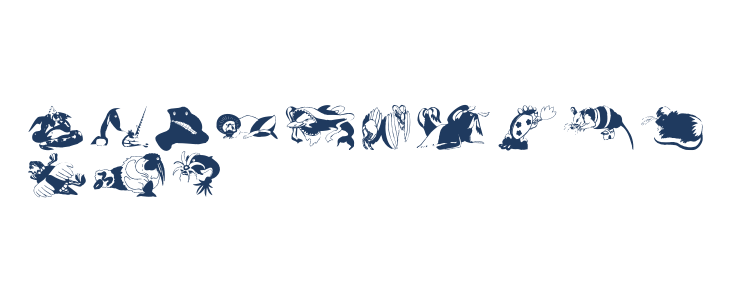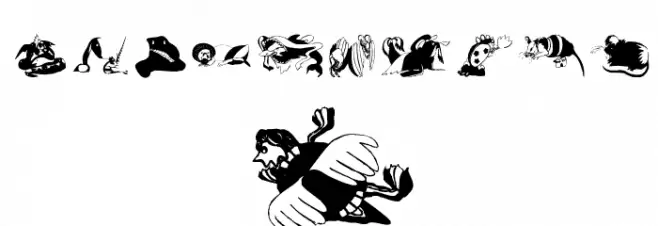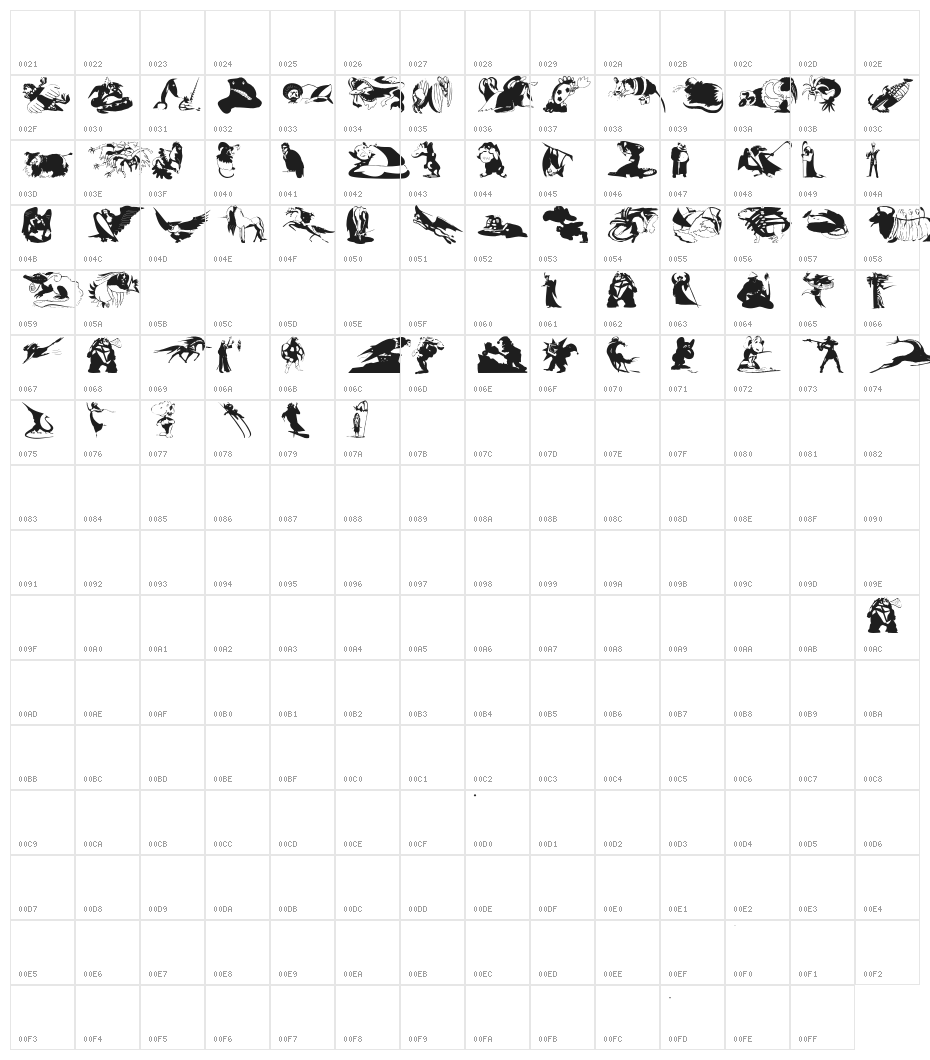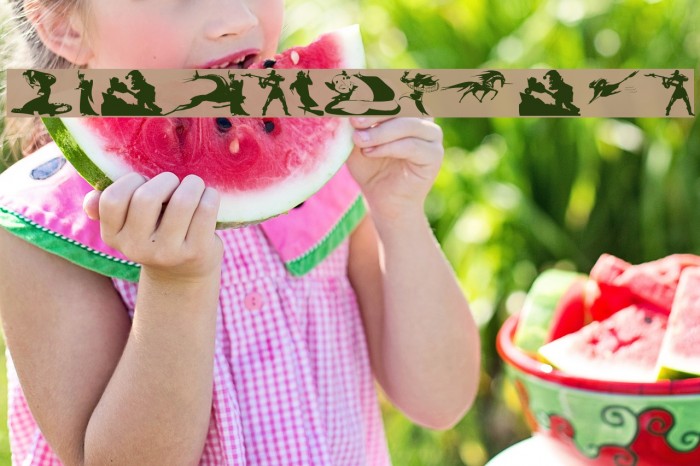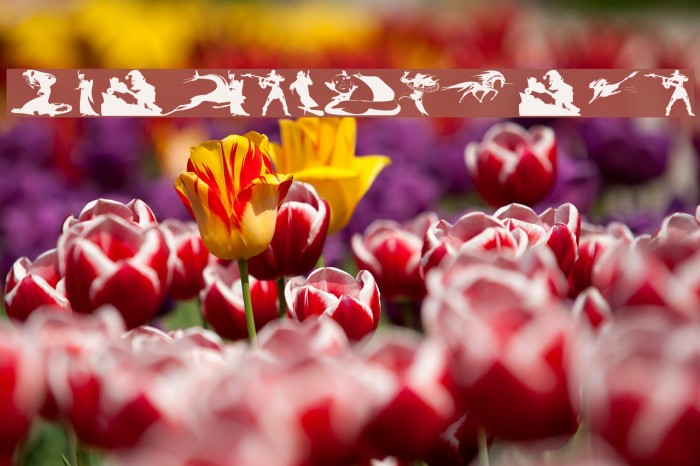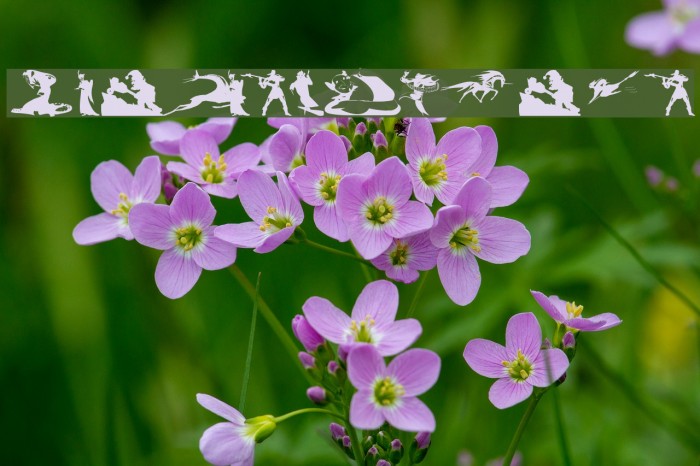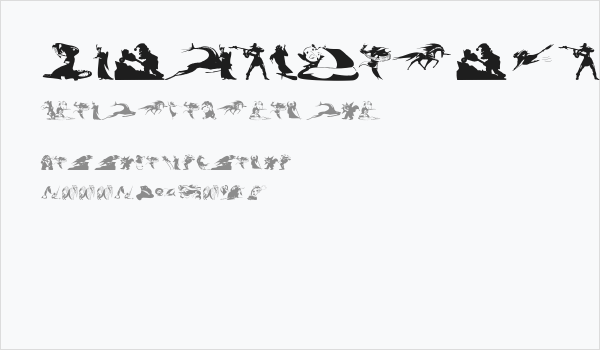
FantasyBeings Font
FantasyBeings Description
A highly decorative and illustrative set of glyphs, each character represented by a unique fantasy creature or being in silhouette style, with strong contrasts and playful, imaginative forms.
Whimsical fantasy-themed pictorial font with creature silhouettes from Uncategorized fonts.
- Proposed Projects: Children’s books, fantasy game titles, themed event posters, creative branding, decorative initials.
- Overall Style: Decorative, Fantasy, Whimsical
- Use Case: Logos, Headlines, Posters, Themed Graphics